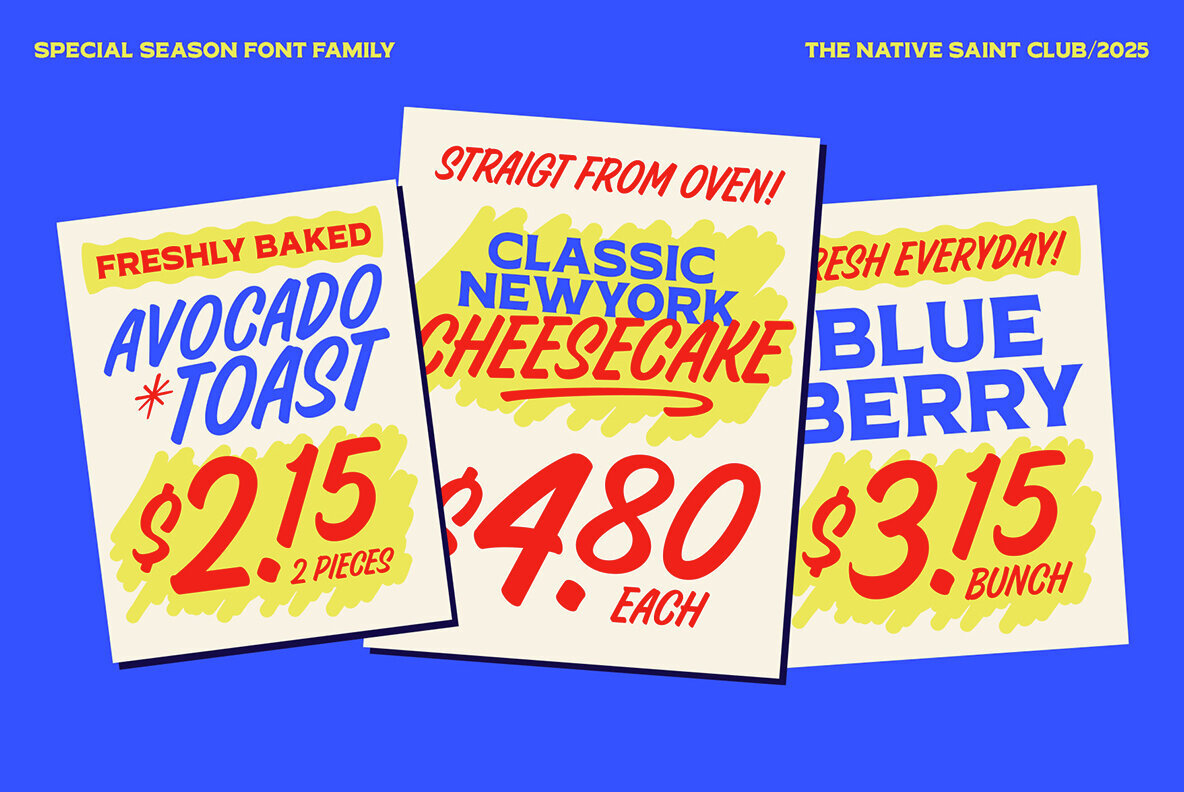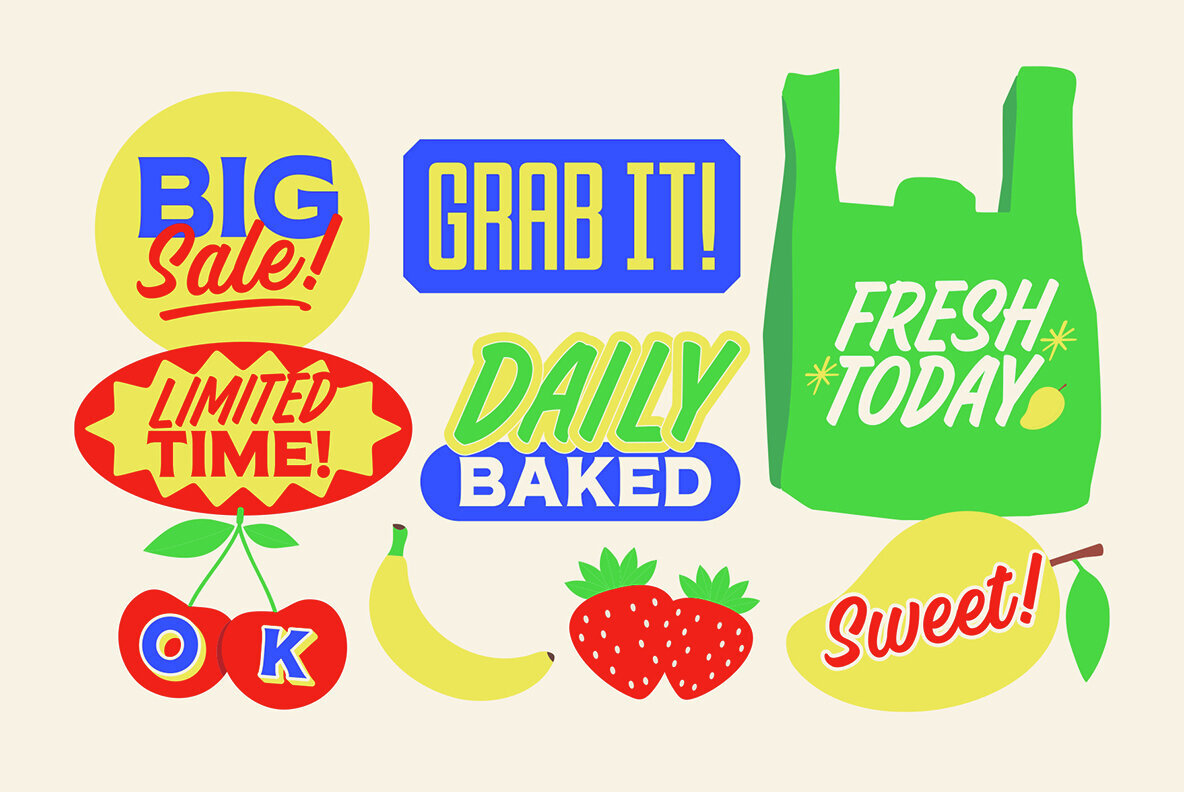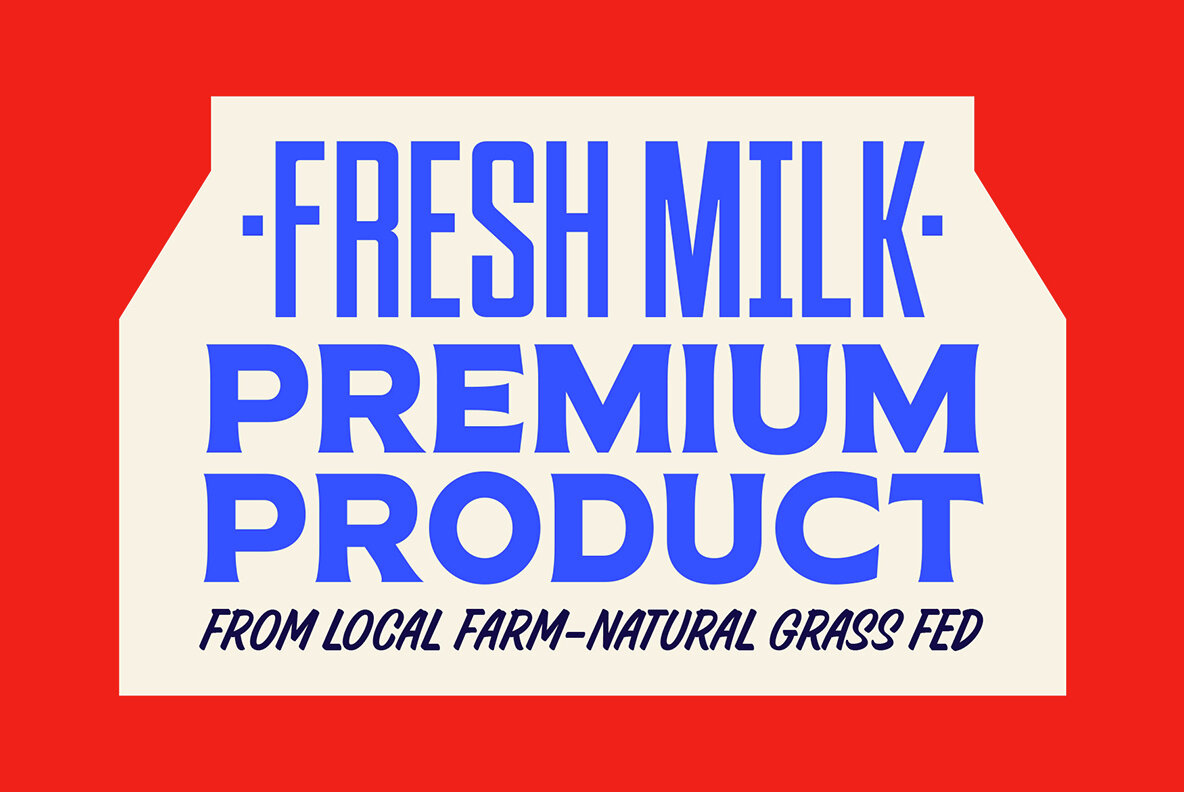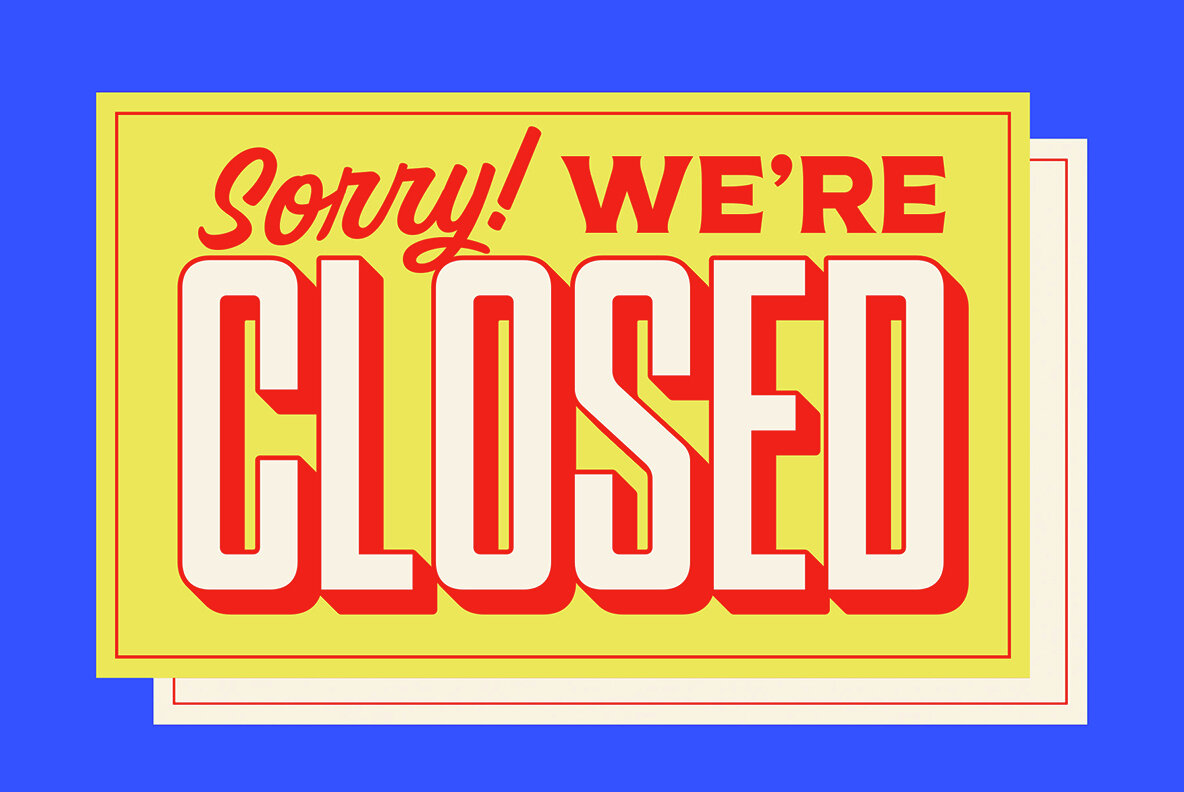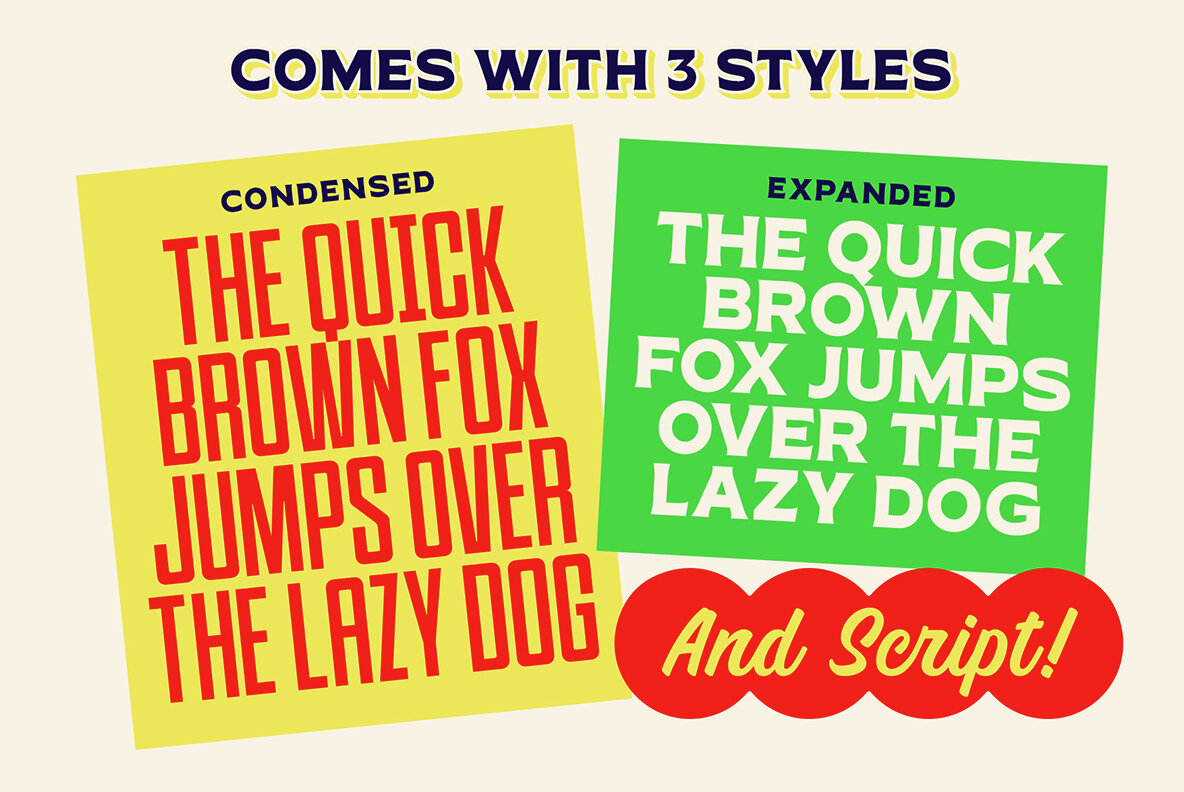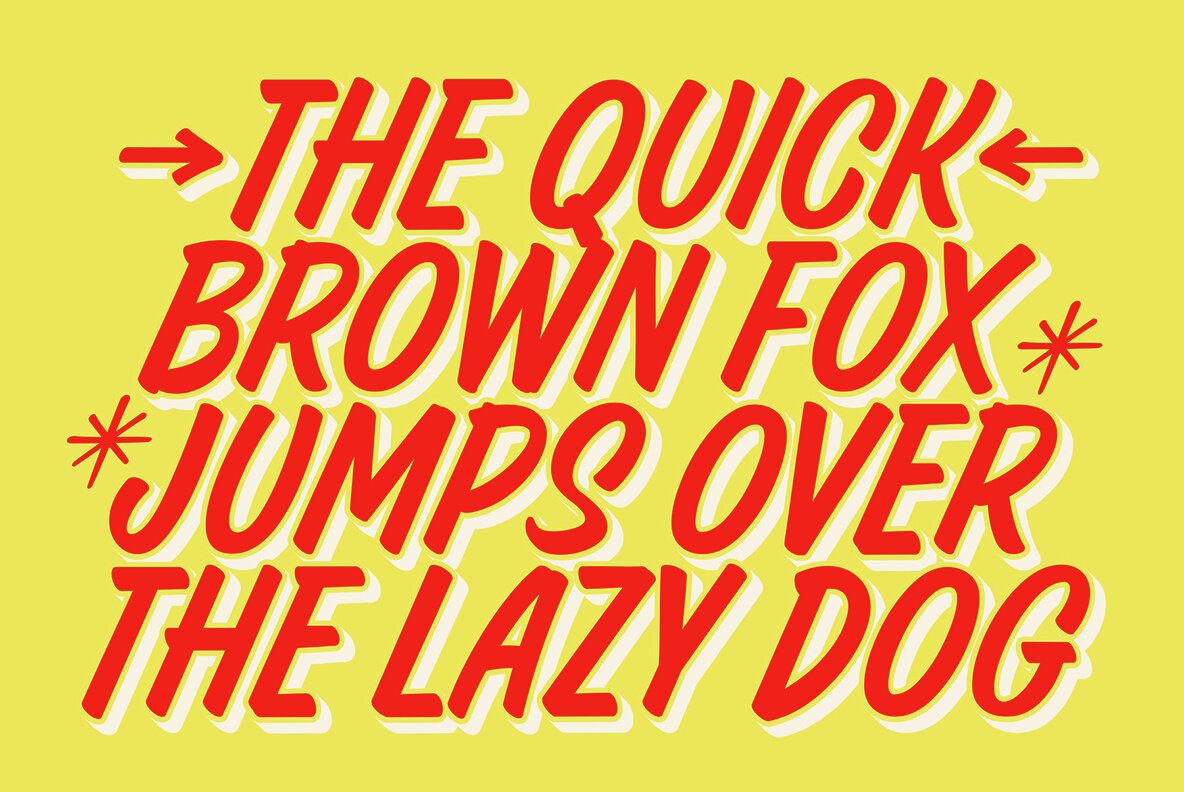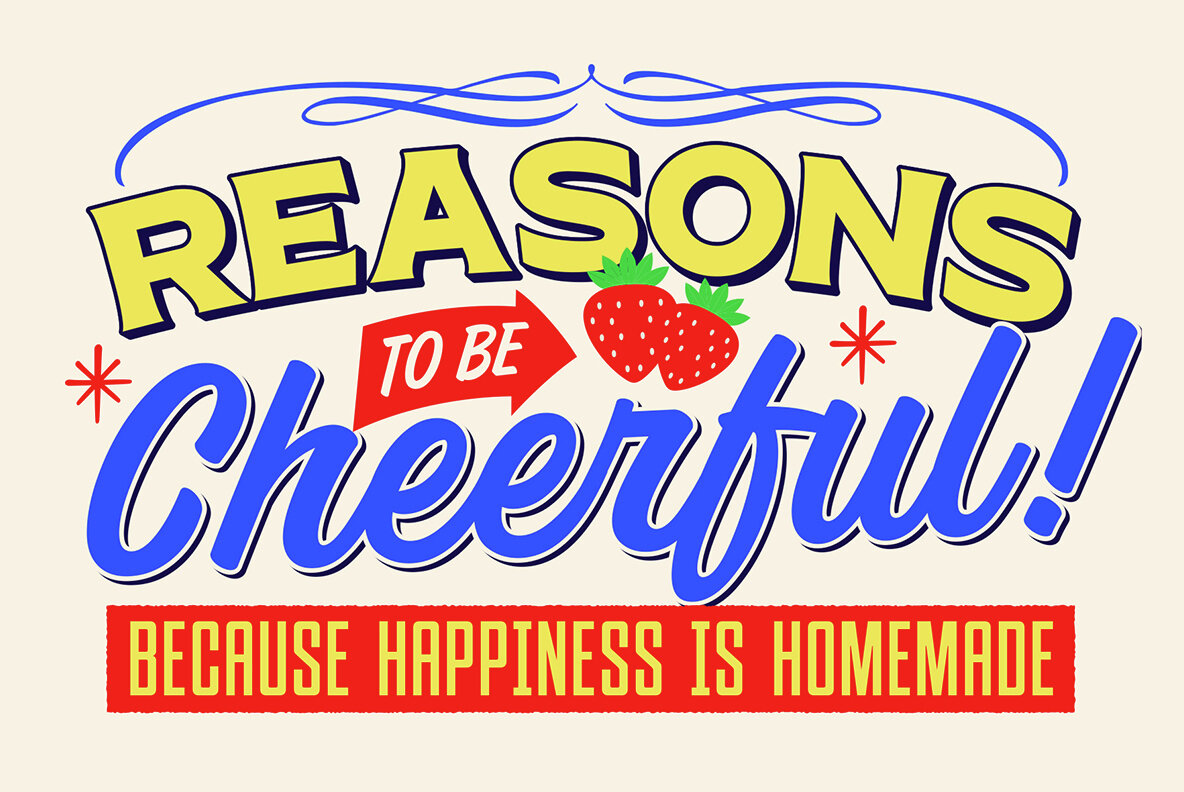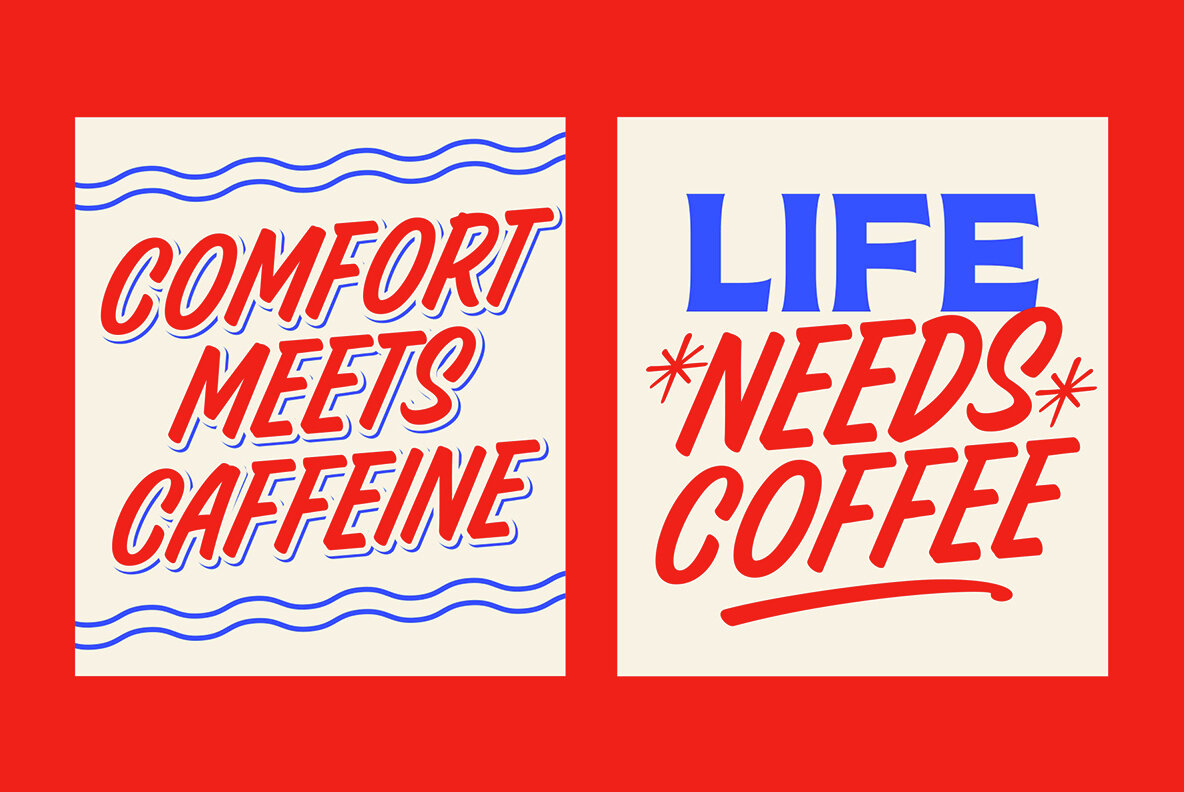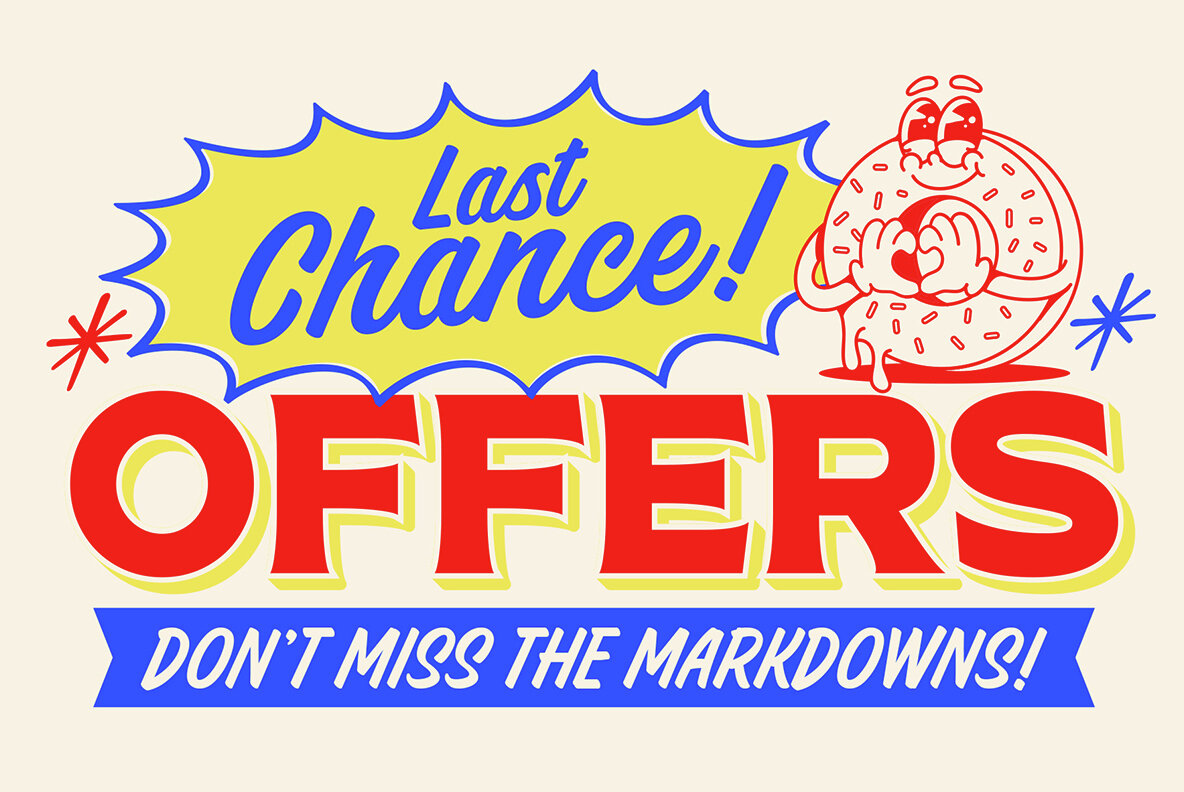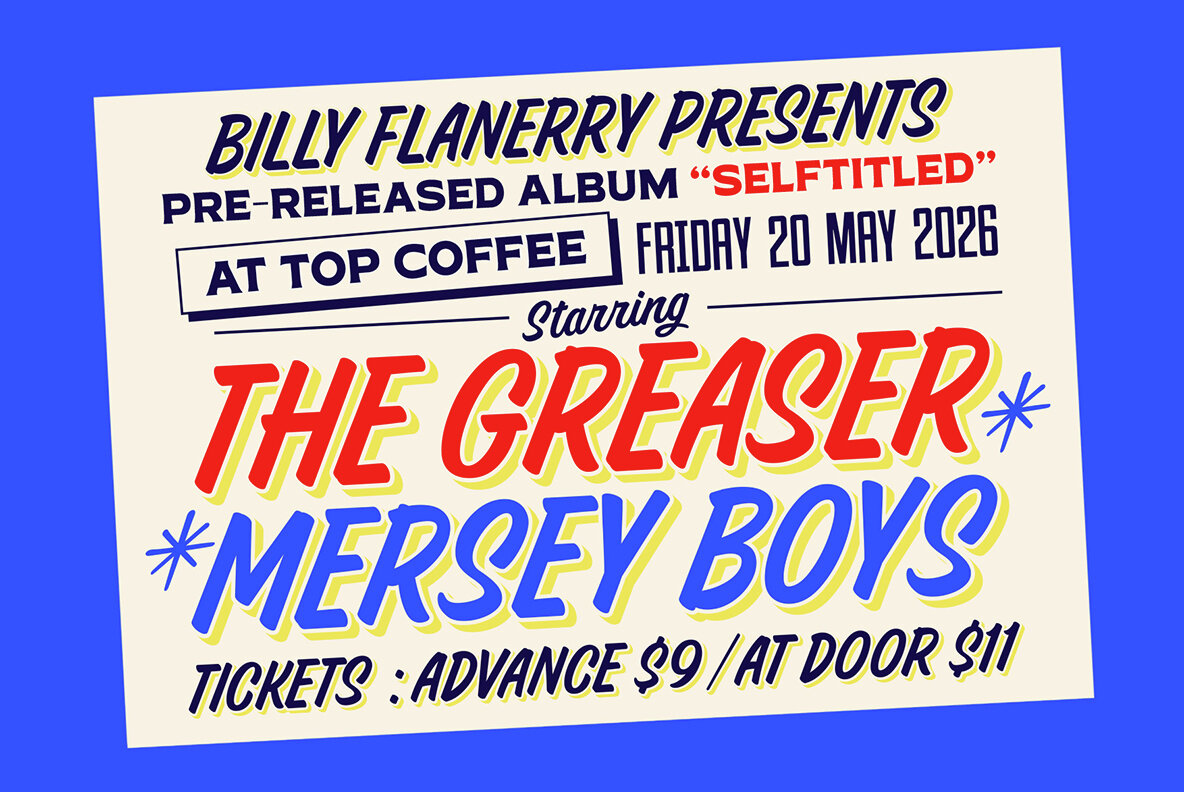
TNSC Special Season Font
TNSC Special Season: A Versatile Font Trio
The TNSC Special Season offers a delightful mix of Brush, Sans Serif, and Serif styles, drawing inspiration from the timeless art of sign painting. This font trio provides ample creative freedom for graphic designers, making it an ideal choice for diverse projects such as branding, packaging, advertising, and printed materials.
• Brush, Sans Serif, and Serif Styles – Offers a comprehensive range of design options.
• Catchwords and Symbols – Enriches designs with additional elements.